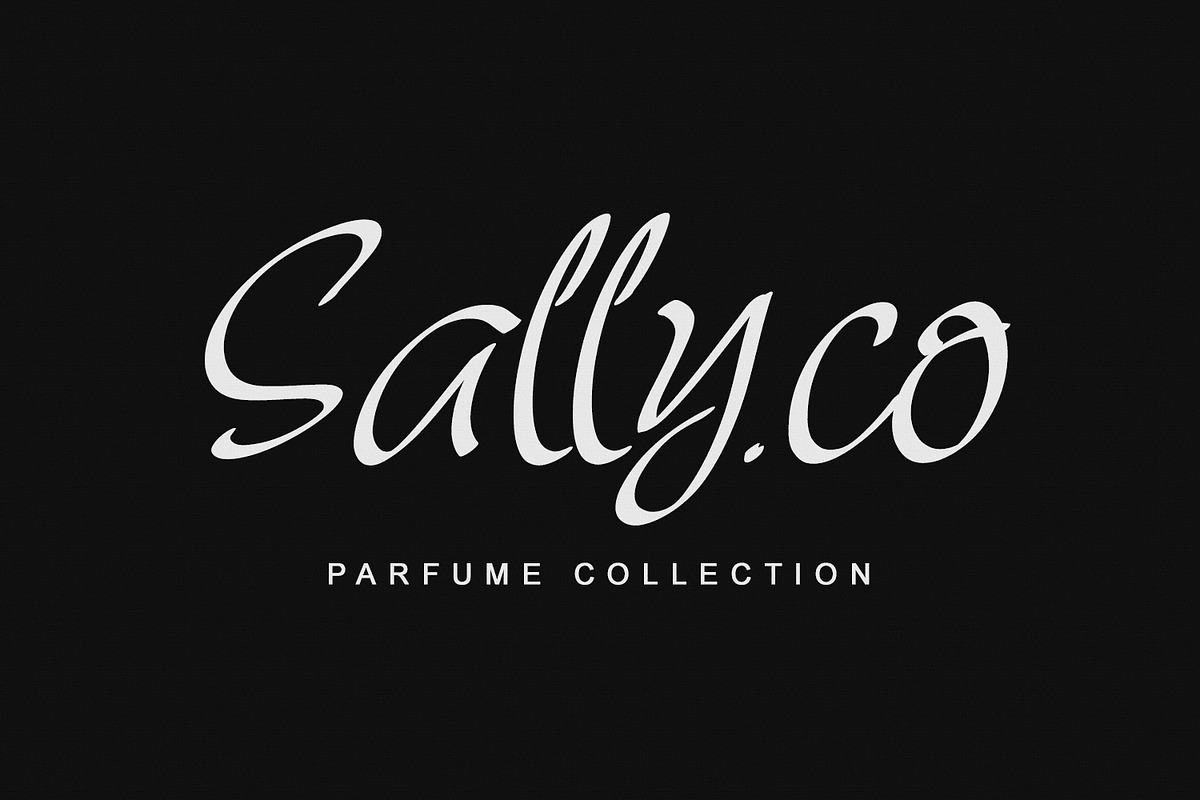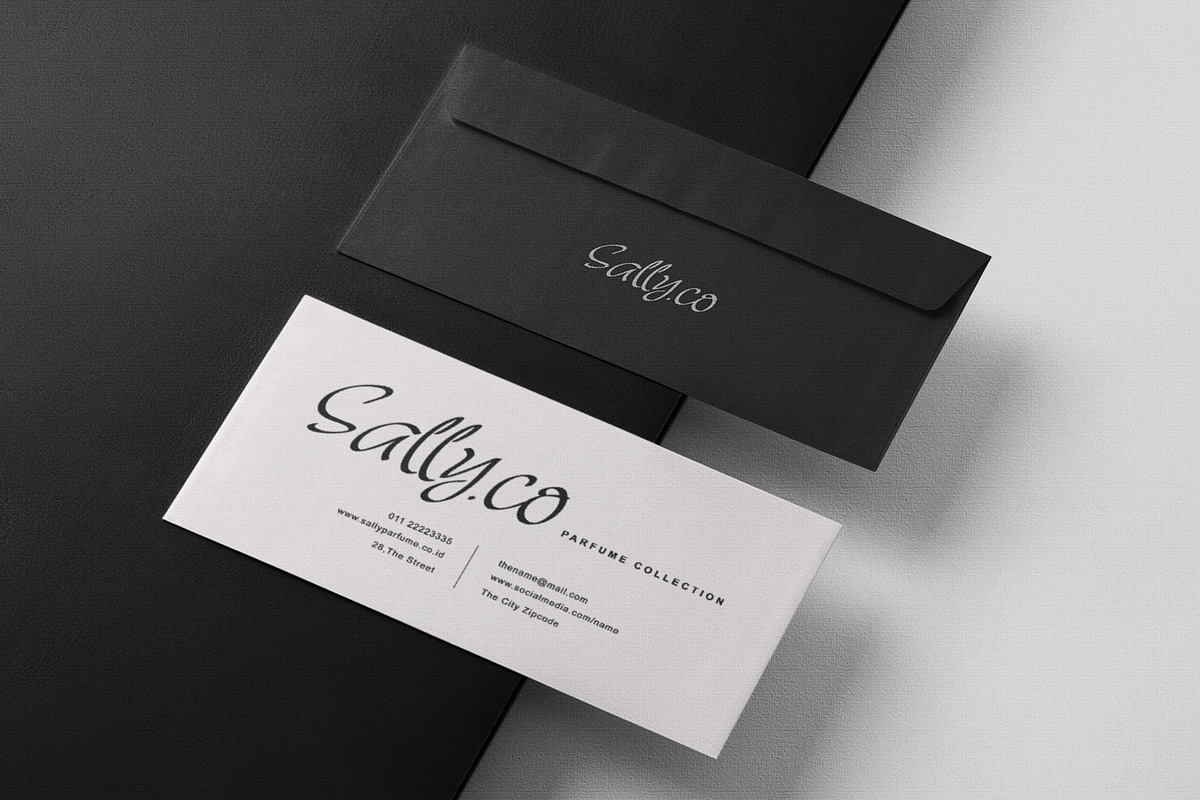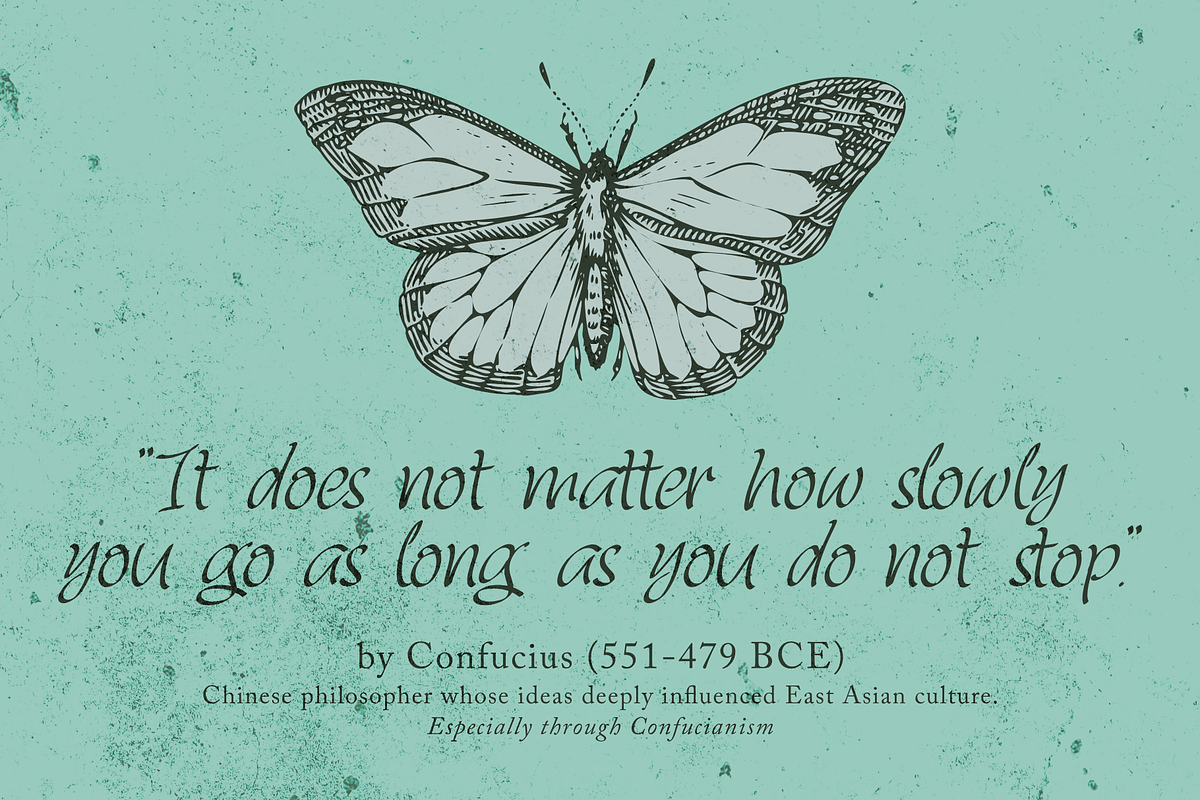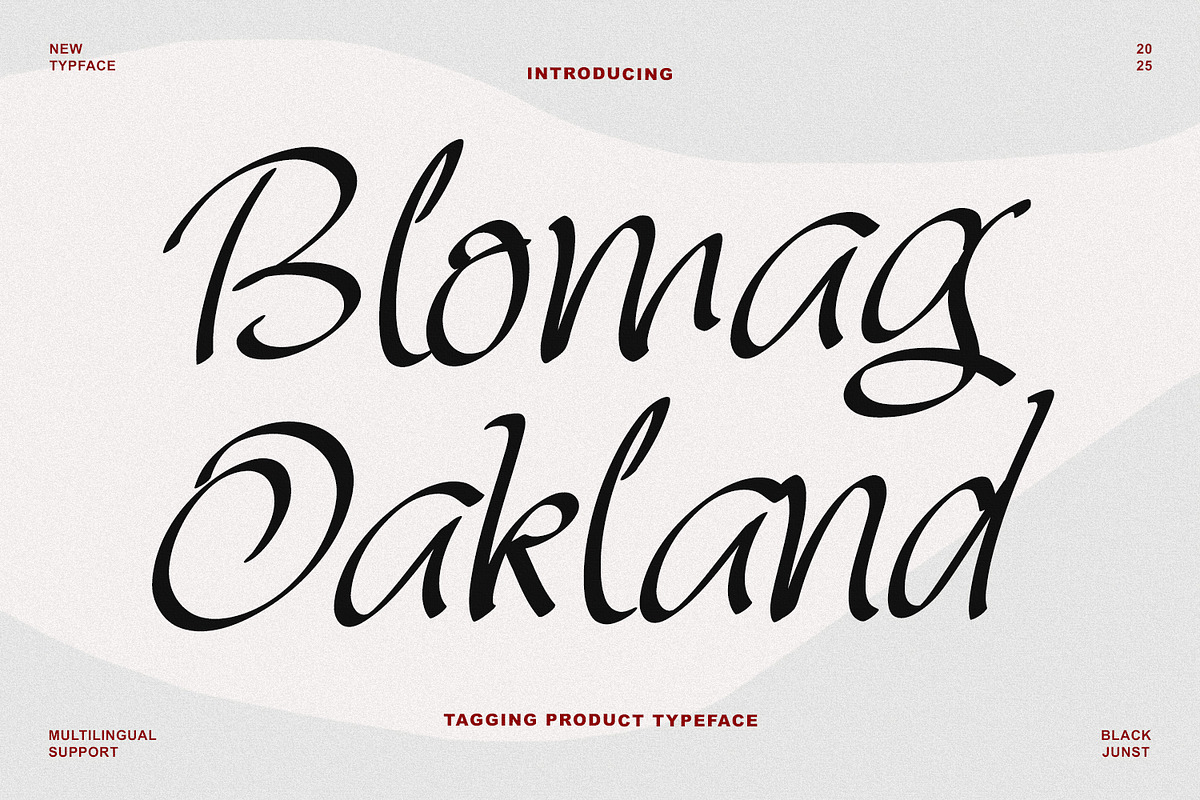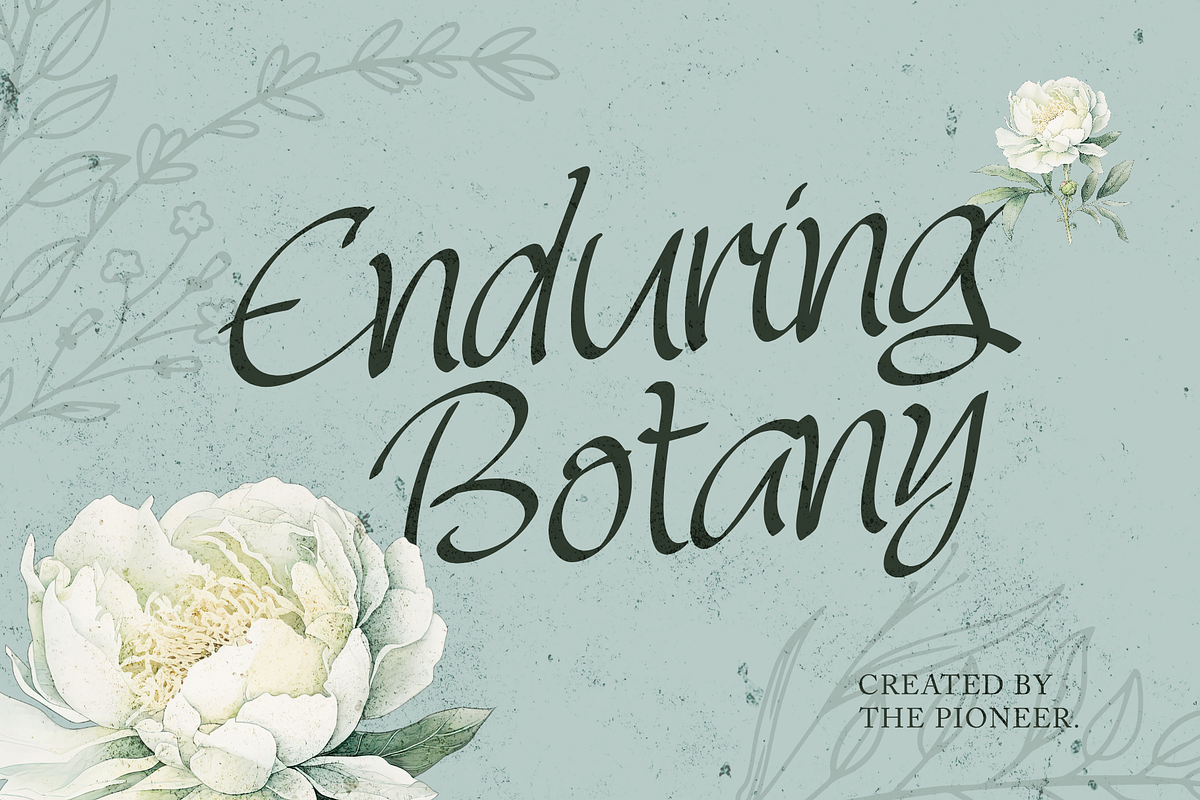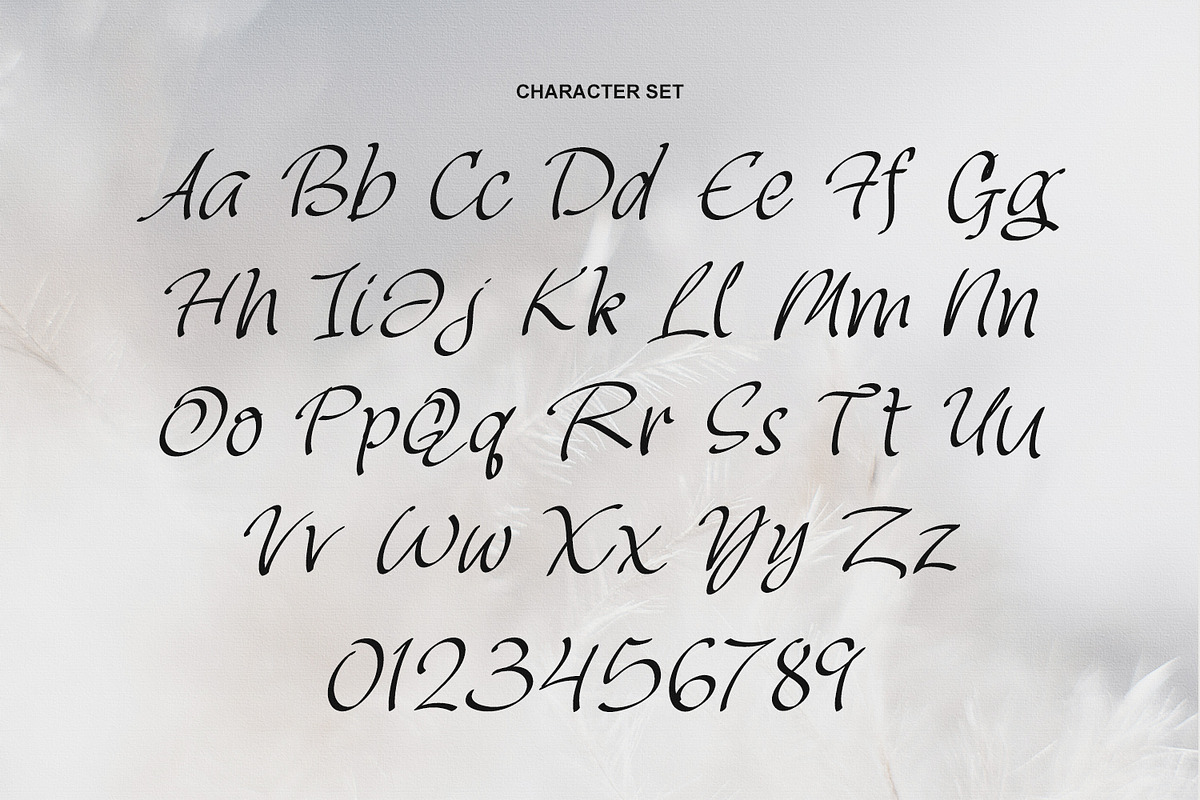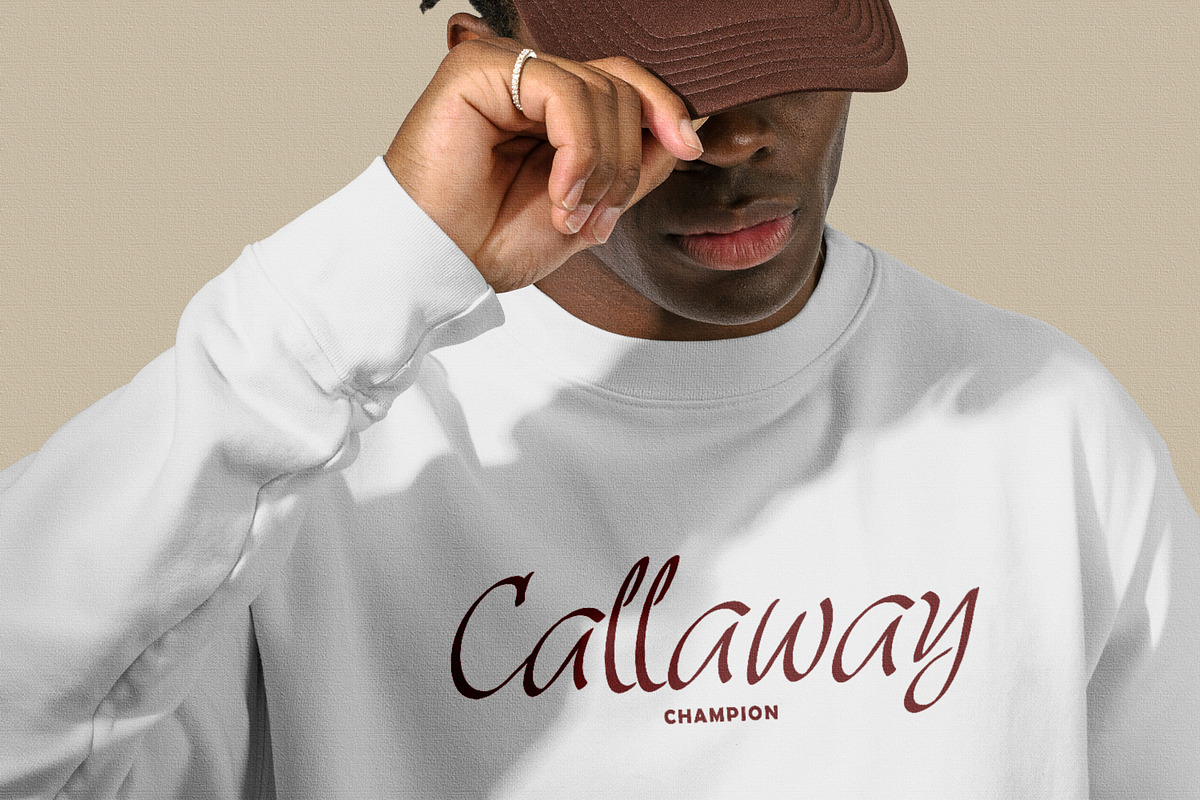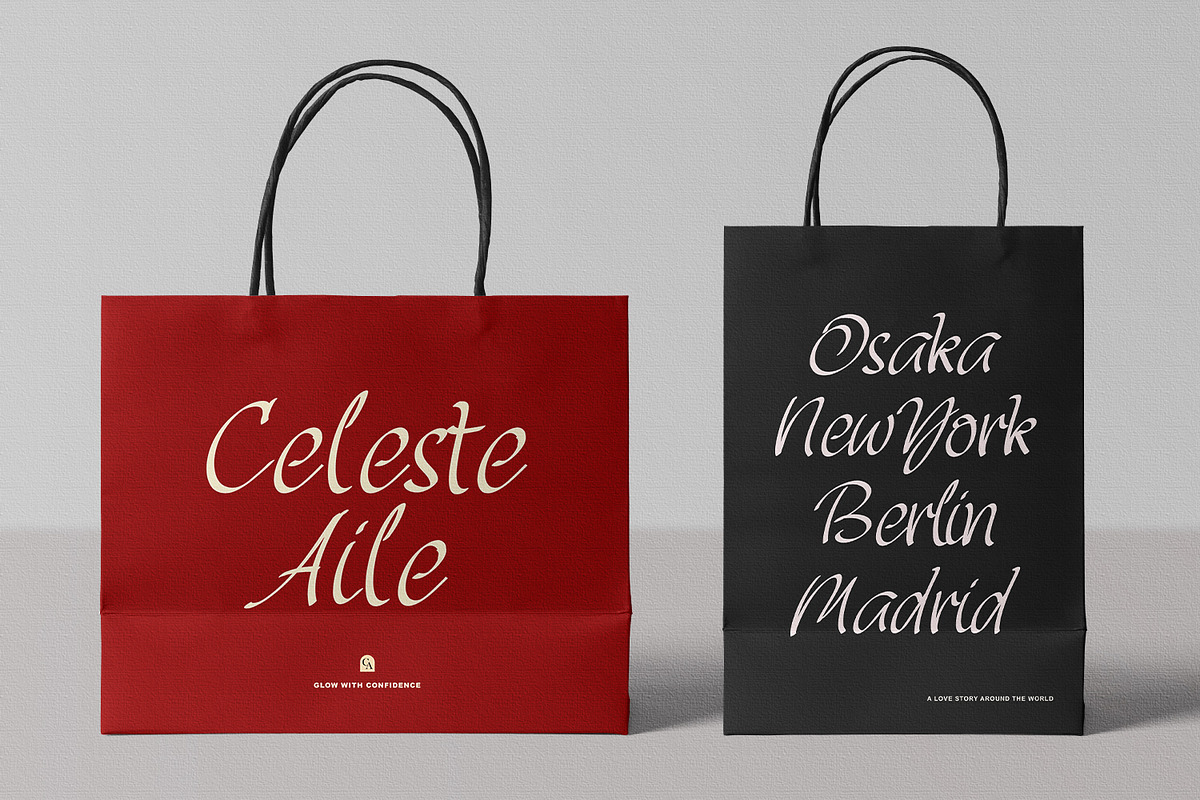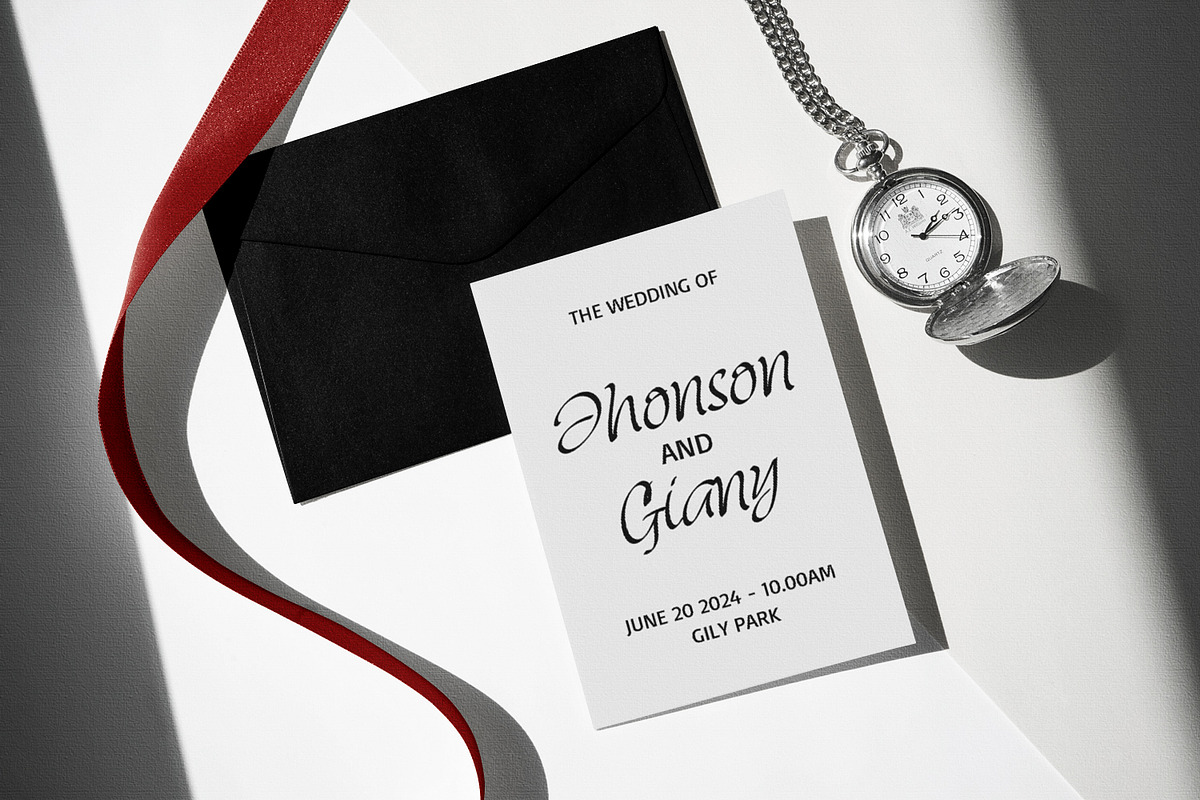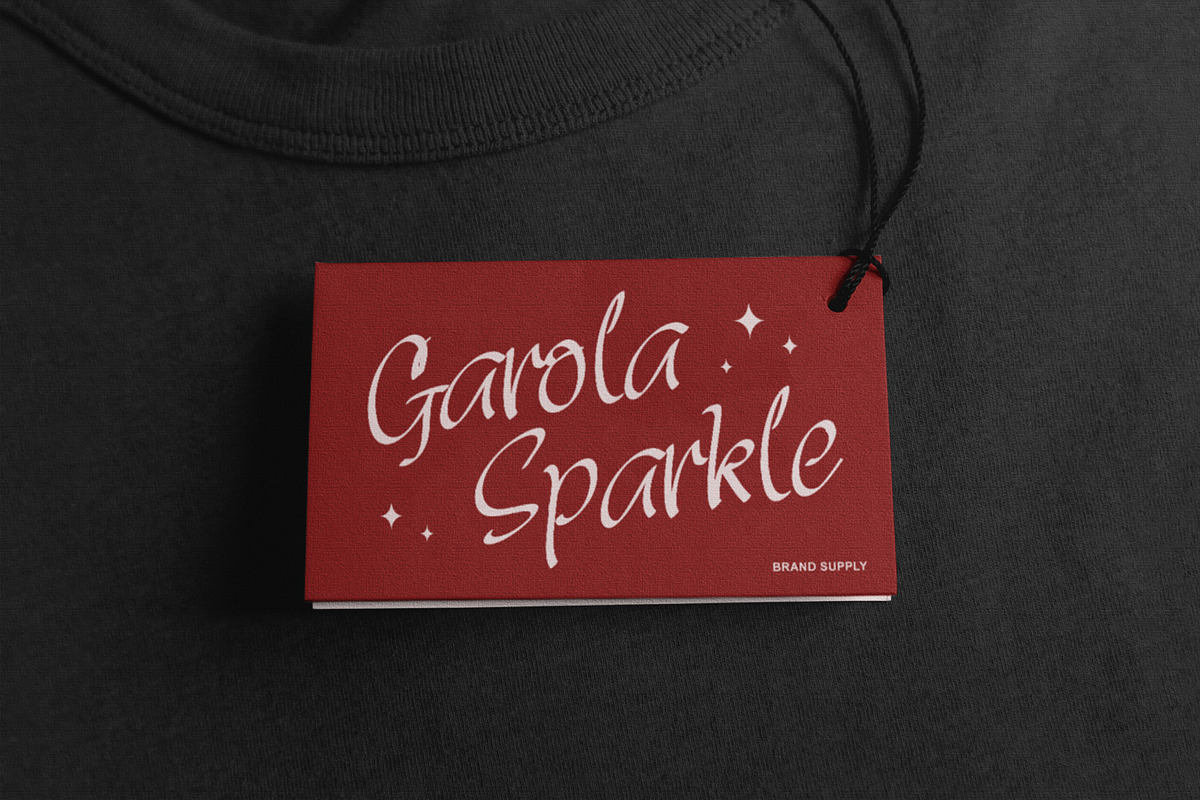
Blomag Oakland Elegantly Font
Blomag Oakland – Elegantly Tagging Product Typeface
Introducing Blomag Oakland, a modern handwritten script typeface that adds a personal, elegant, and confident touch to your creative projects. With smooth curves and expressive strokes, this typeface captures the natural flow of hand lettering while maintaining a bold and polished appearance, making it ideal for contemporary branding.
It strikes a perfect balance between sophistication and warmth, ensuring versatility across various design applications. Blomag Oakland is perfect for product branding, logos, packaging, labels, invitations, social media graphics, posters, and headline designs that require a distinctive handwritten character.
Featuring clean letterforms with consistent spacing, it guarantees readability while preserving its organic, handwritten feel. The flowing connections and stylish curves enhance its effectiveness for brand identities that aim to convey authenticity, creativity, and memorability. Whether designing for lifestyle brands, fashion, food packaging, or promotional materials, this typeface delivers a strong visual presence that makes your message stand out with charm and personality.
Blomag Oakland offers a balanced combination of readability and character. Whether you're working on a label design, logo, or social media post, this typeface helps elevate your visuals with a handcrafted, stylish flair.
Make your designs stand out with the bold charm of Blomag Oakland.